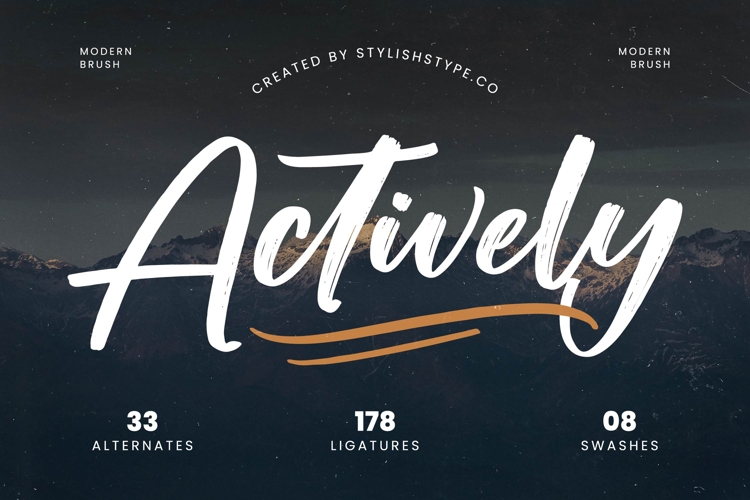
Actively - Modern Brush Font
Elevate your designs with an authentic, handcrafted touch through Font Actively - Modern Brush Font Script, a truly captivating typeface that embodies dynamic artistry. This modern brush script emanates a vibrant, organic feel, characterized by its fluid, expressive strokes and inherent energy. It masterfully blends contemporary aesthetics with a distinct hand-lettered charm, making every design feel uniquely and exceptionally engaging.
Unlock boundless creative potential with rich typographic features. Font Actively - Modern Brush Font Script comes equipped with an impressive suite of open-type features, including 33 Alternates, 178 Ligatures, and 8 Swashes. These extensive options provide unparalleled flexibility, allowing designers to craft truly customized headlines and logos that stand out with remarkable visual consistency and a genuine artisanal flair.